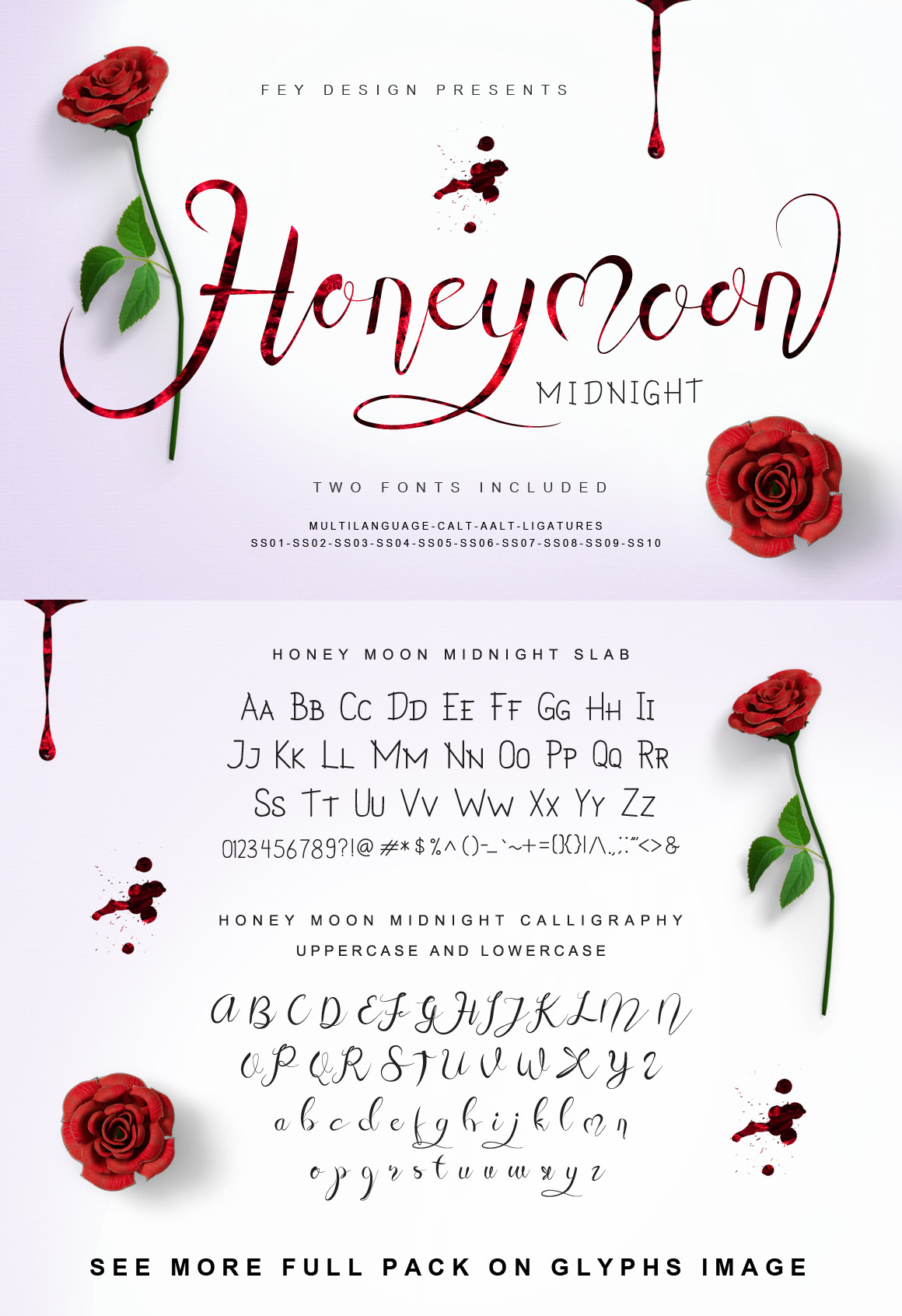
Honey Moon Midnight - Two Fonts
Honey Moon Midnight Two Fonts
Suitable for design, element design, wedding, event, t-shirt, logo, badges, sticker, and awesome work, etc...
Combination alternative ligature fonts
Standard Ligatures, Stylistic Set, Multilanguage Characters
Modern Calligraphy Typeface
Unique style fonts